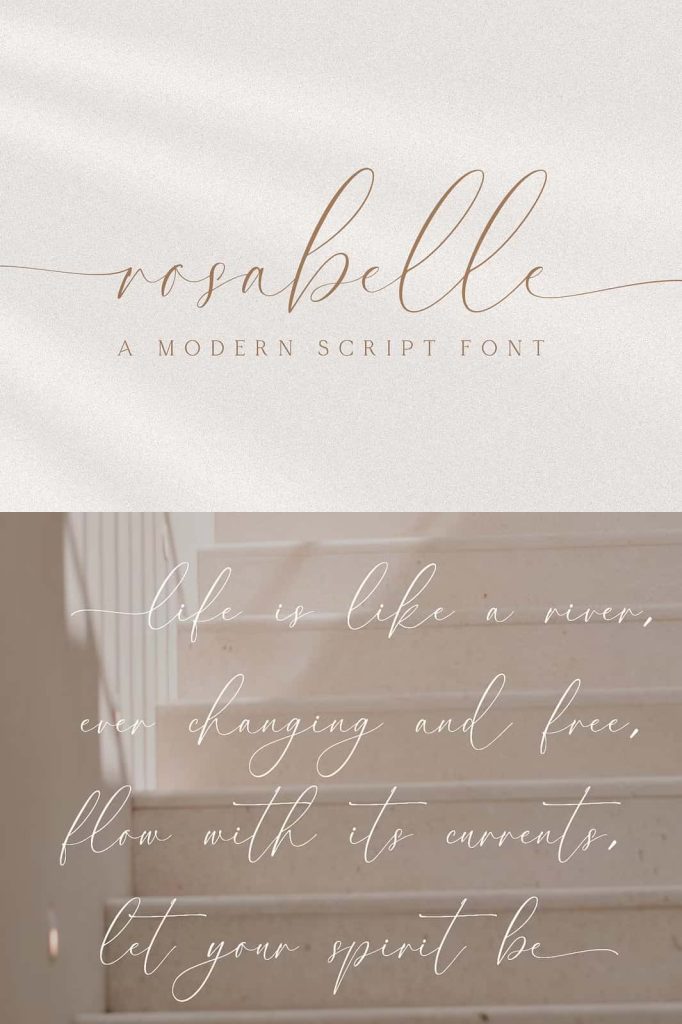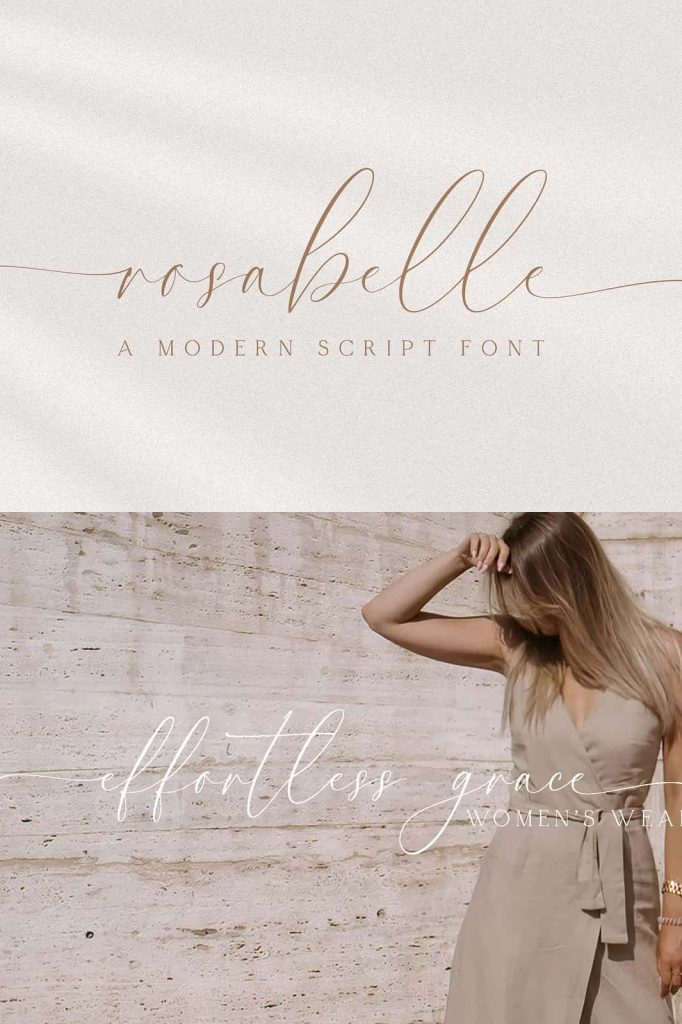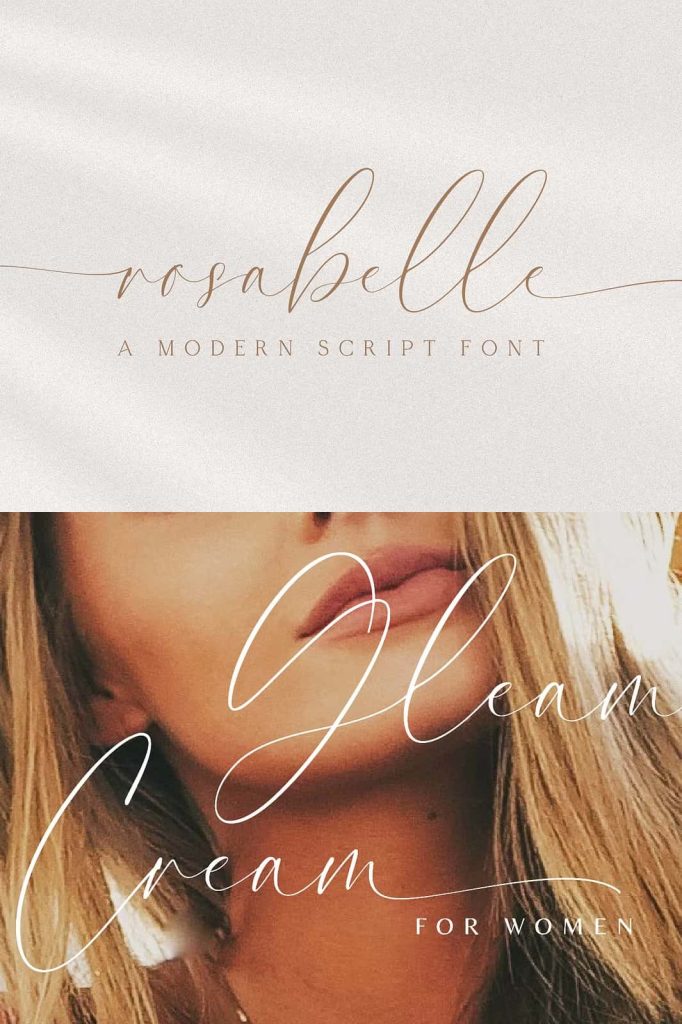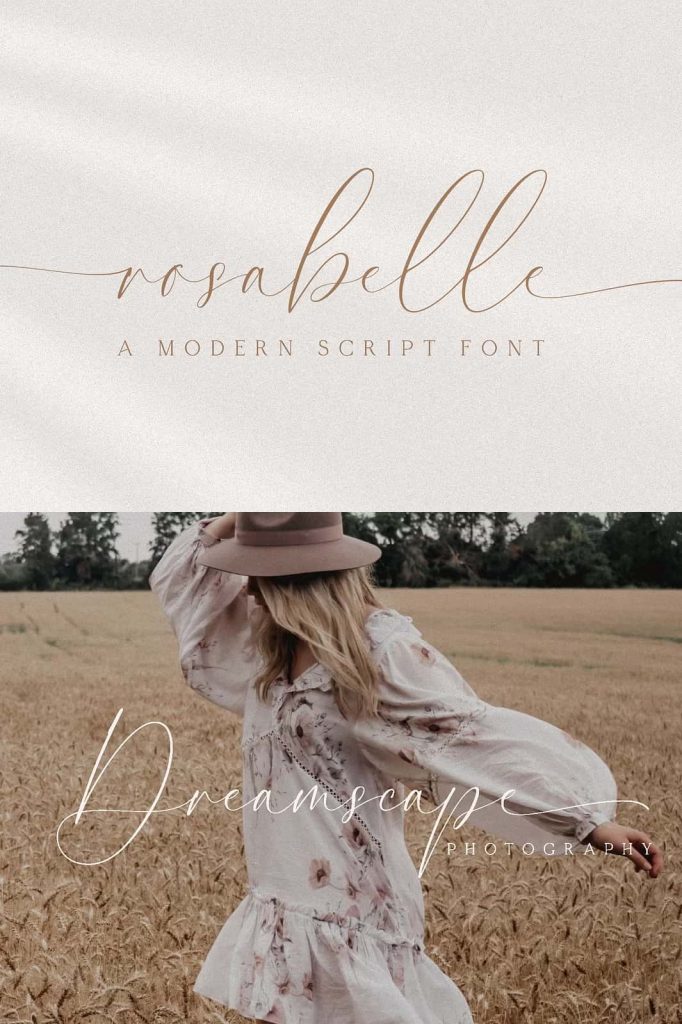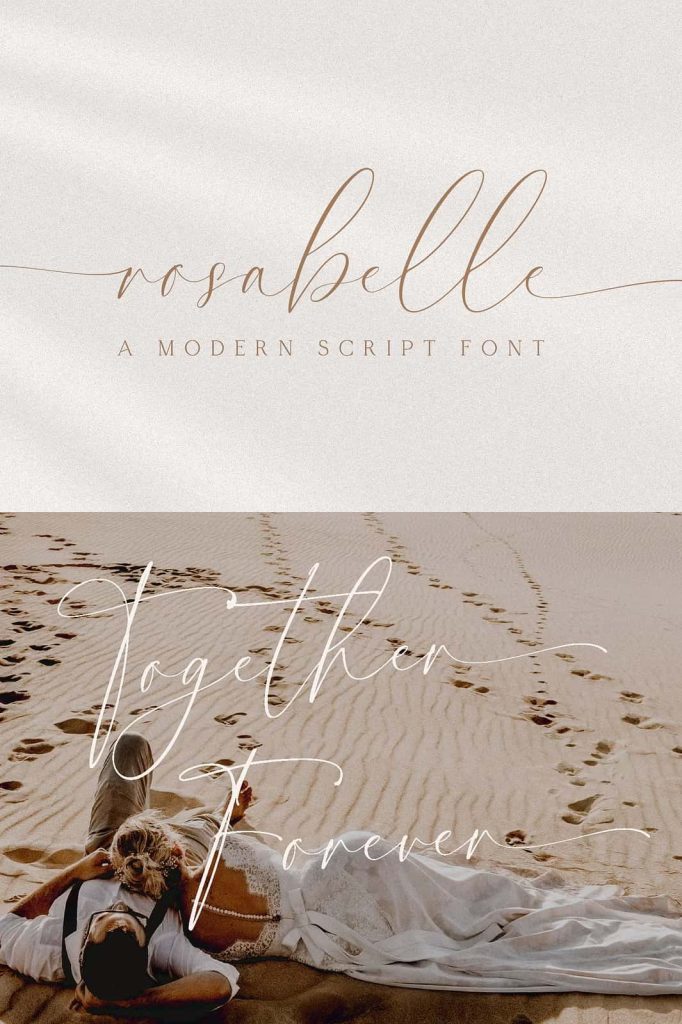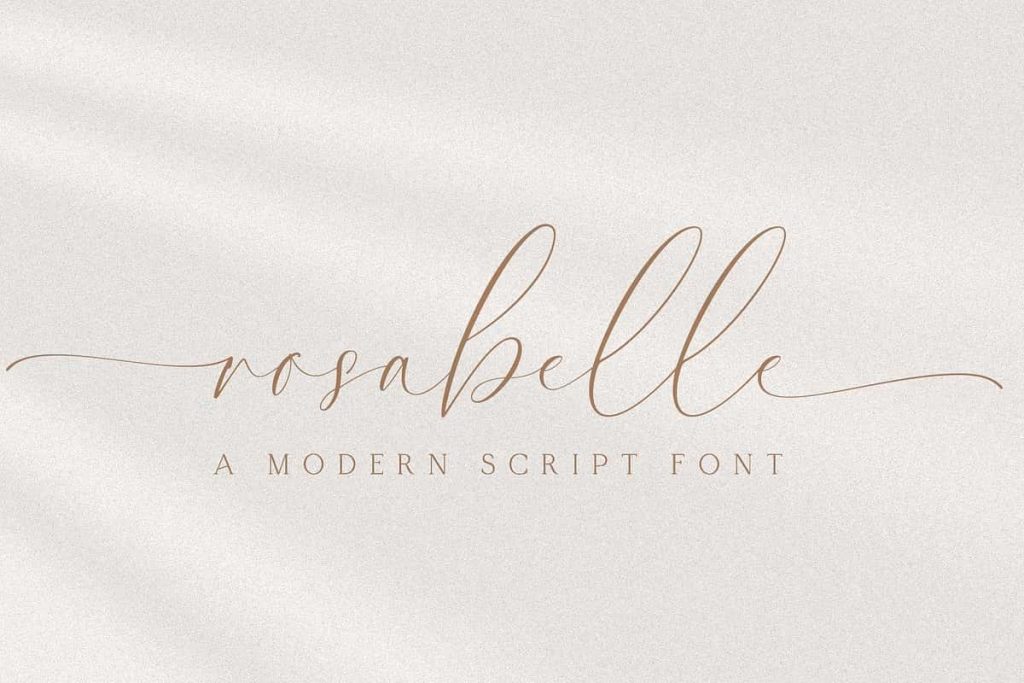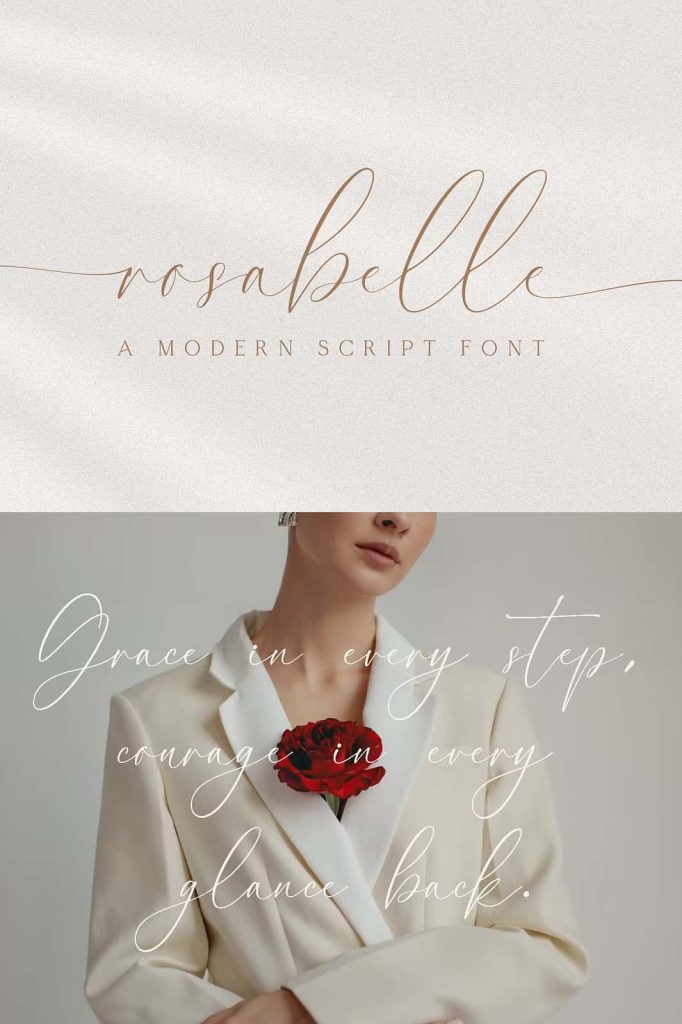
Introducing Rosabelle Script, the new modern script font that blends clean, soft lines with delicate elegance. With its gentle curves and refined strokes, Rosabelle Script offers a touch of sophistication while remaining approachable and versatile.